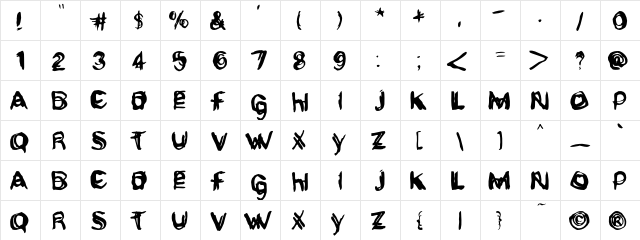
Gritzpop Grunge
| Style | Grunge |
Design Context for Gritzpop Typeface
Gritzpop embraces imperfection — its rough, textured character adds raw authenticity to designs that want to feel lived-in and unconventional.
A strong fit for alternative music projects, graffiti-adjacent design, and anything that deliberately resists polish.
Pro Tip: Use Gritzpop at larger sizes where the texture and irregularity of each letterform can be clearly seen — it loses its character at small sizes.